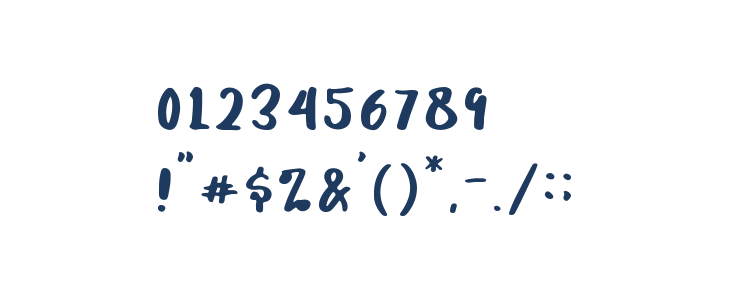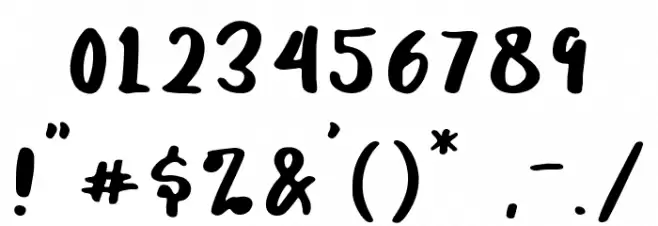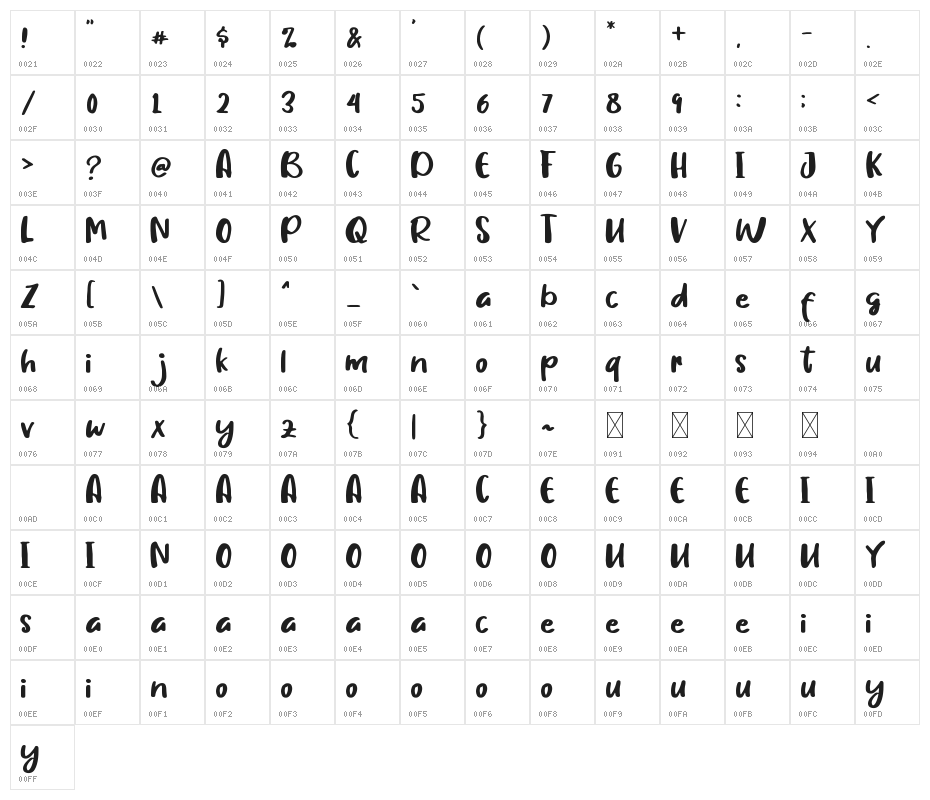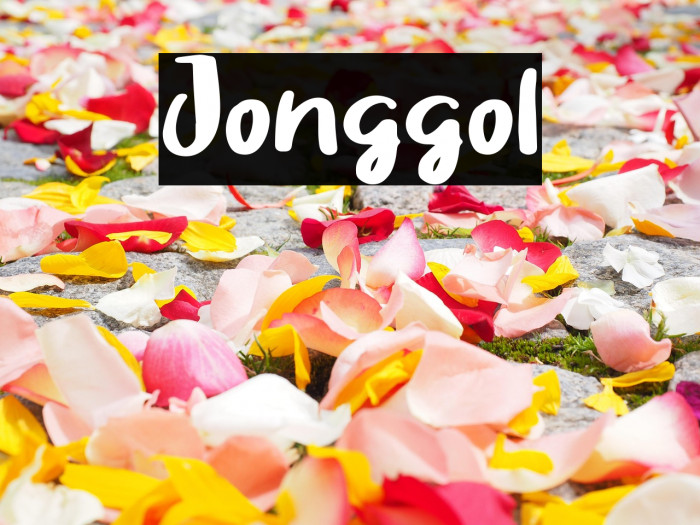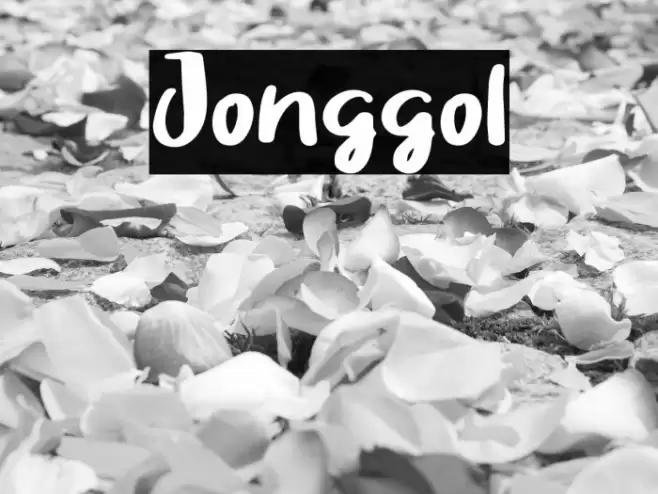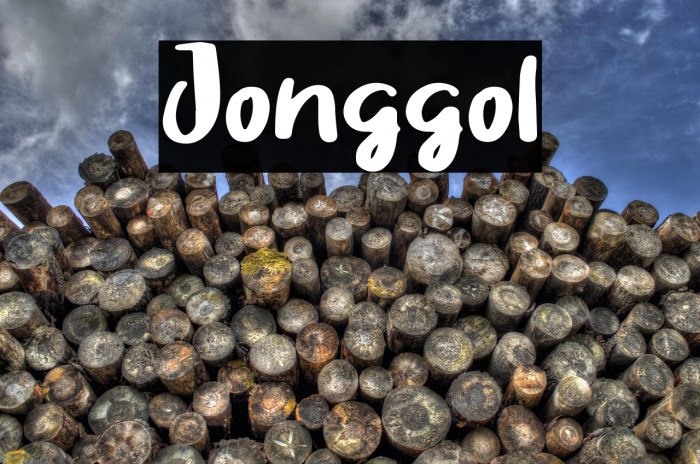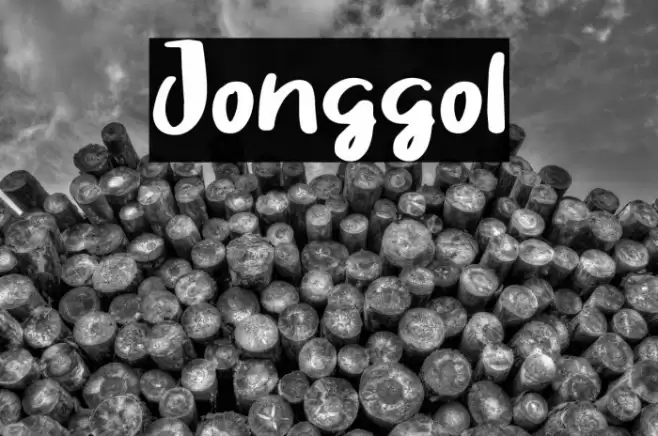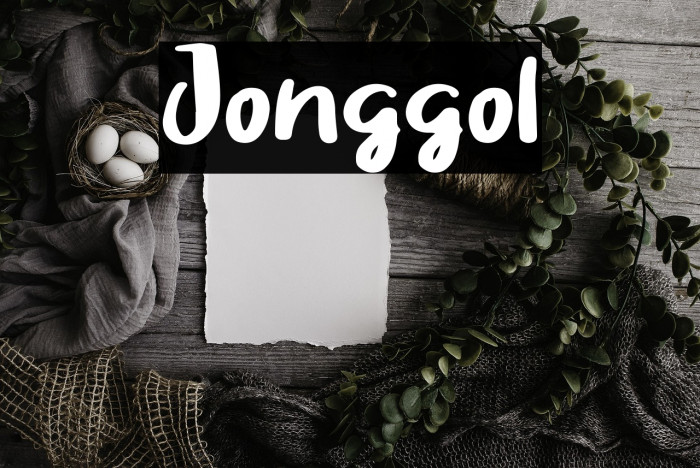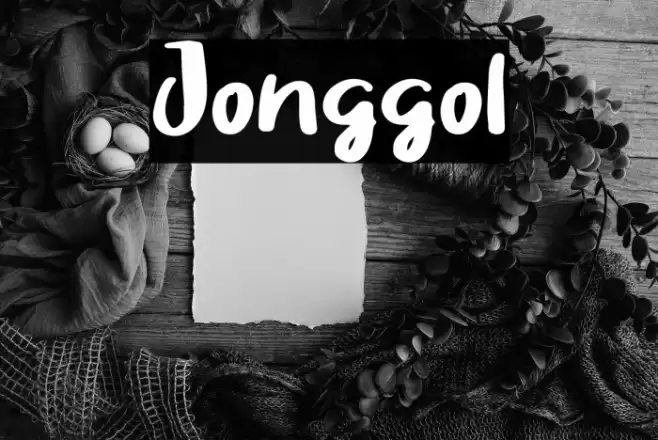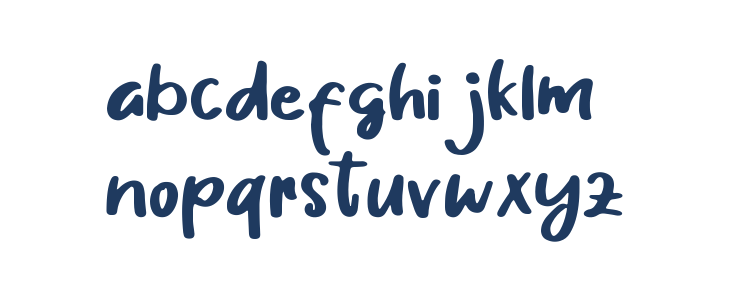
Jonggol Font
Jonggol Description
This font features a bold, handwritten style with a playful and casual appearance. The characters are rounded and slightly irregular, giving it a friendly and approachable feel. The uppercase and lowercase letters maintain a consistent flow, while the numbers and special characters complement the overall style. The strokes are thick and uniform, adding to the boldness of the design. This font is ideal for projects that require a personal touch or a fun, informal vibe.
Overall StyleCasual
Proposed ProjectsGreat for greeting cards, children's books, playful branding, and social media graphics.